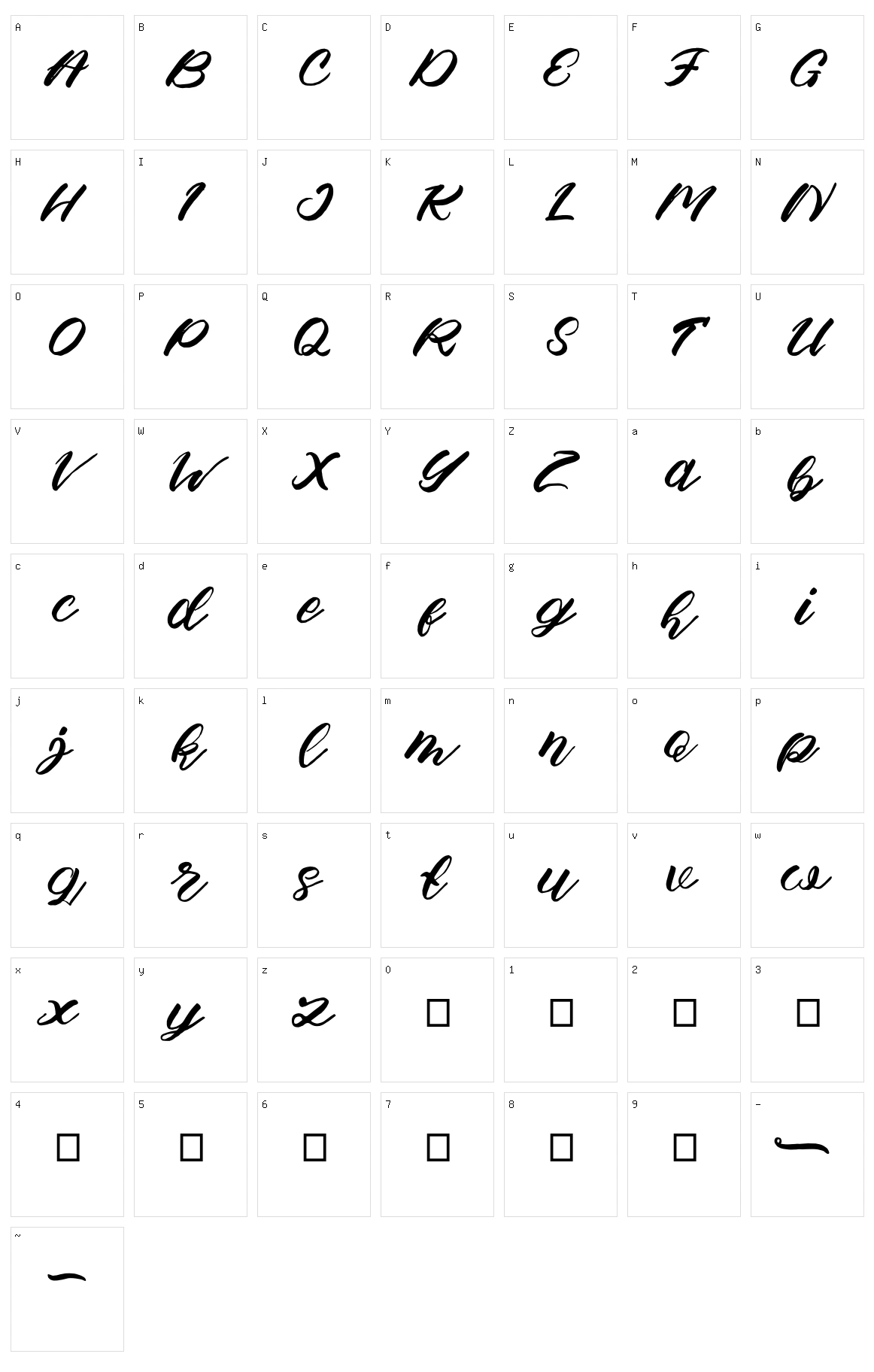
Apem
Designed by: SSI.Scraps
Description: The free font Apem is carefully designed by SSI.Scraps, showcasing a thoughtful balance of creativity and usability and falls under the Script font style. When you download the ZIP file, it contains only 60.81 KB of font files, making it lightweight and quick to download. Please review the license details below to understand permitted usage and distribution rights. If license information is not available, we recommend using this font for personal projects only or contacting the author directly for commercial usage permissions.